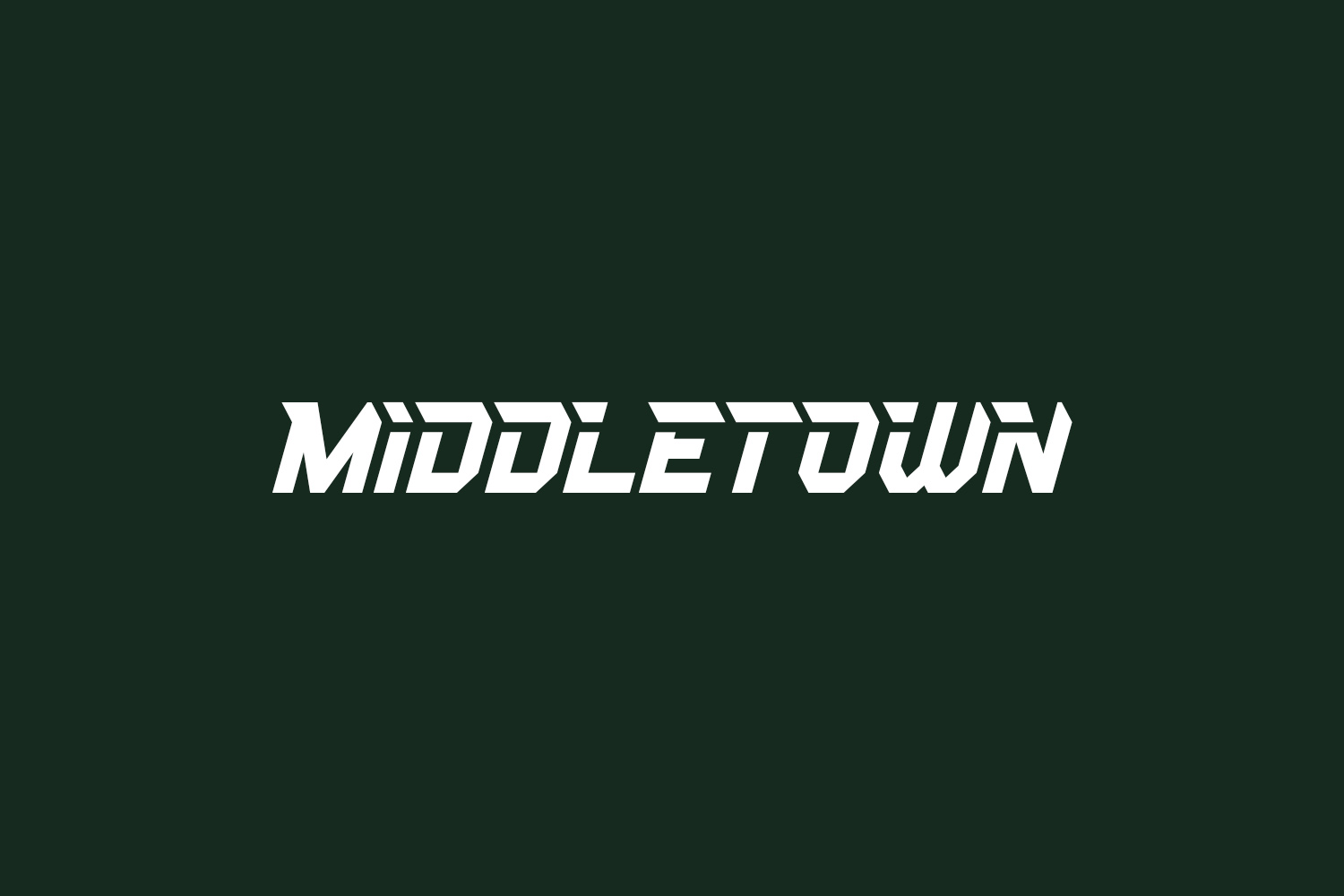
Middletown Free Font is a modern and cool display font. This typeset is perfect for brand logos, invitations, greeting cards, or even any kind of project. With multilingual features and style variations, this typeface would further enhance the aesthetical aspect of your work. Middletown Free Font was designed by Display Studio and is free for personal use only. Please purchase the full version for commercial use.